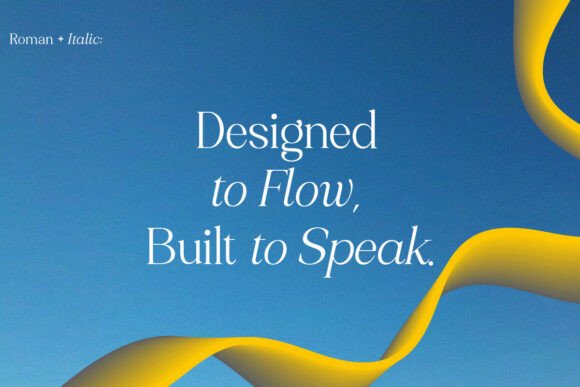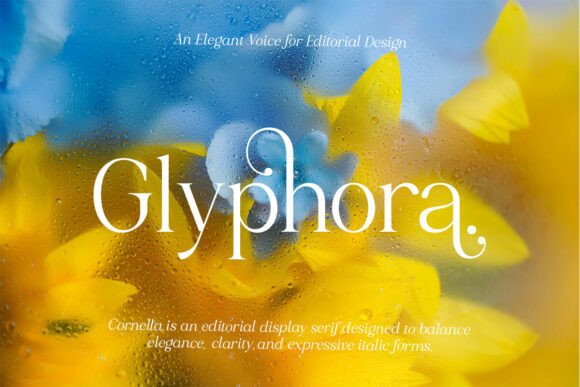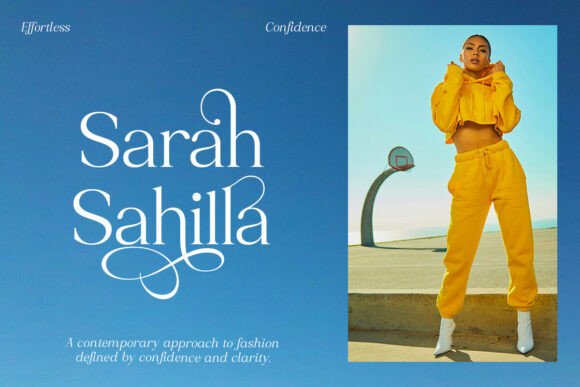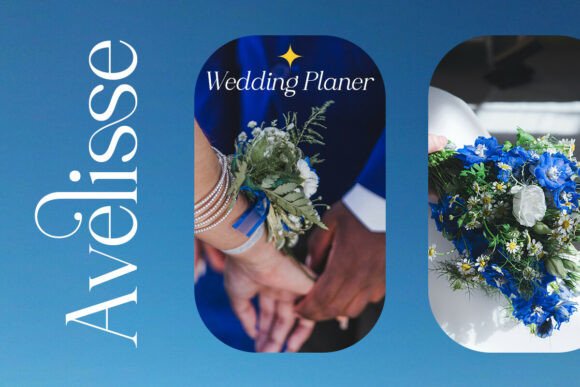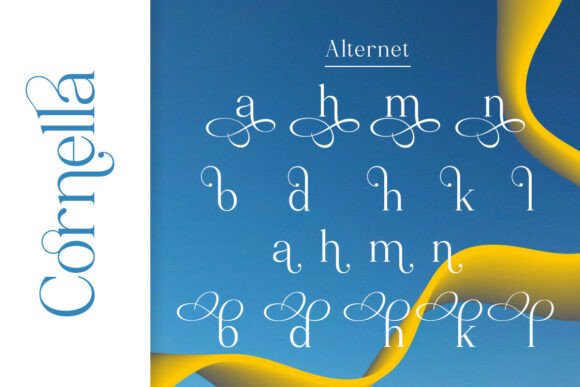
Cornella Font: Elevate Your Design with Elegance and Sophistication
In the world of typography, few fonts manage to strike a balance between classic elegance and modern flair. Cornella Font is one such exceptional typeface that brings sophistication, clarity, and character to modern visual storytelling. Designed with the needs of high-end editorial and display use in mind, Cornella is an elegant editorial display serif that is sure to elevate your design projects.
Inspiration from Classic Typography with a Contemporary Touch
Cornella Font draws inspiration from classic typography, but with a contemporary twist that makes it perfect for modern design applications. The font’s creator aimed to blend the best of traditional typography with the demands of modern visual storytelling, resulting in a typeface that feels both timeless and current.
At the heart of Cornella’s design are its graceful curves, refined contrast, and expressive italic forms. These features combine to create a font that exudes elegance and sophistication, making it an ideal choice for designers seeking a serif that stands out without losing its refinement.
Perfect for High-End Editorial and Display Use
Cornella Font shines in a variety of applications, including fashion editorials, magazine layouts, branding, luxury packaging, wedding designs, and expressive headlines. Its regular style offers clean readability, making it perfect for body text, while the italic adds a dramatic, fluid accent for emphasis and elegance.
Whether you’re designing a luxury brand’s logo, creating a fashion editorial, or crafting a wedding invitation, Cornella Font provides the perfect combination of style and substance. Its balanced proportions and subtle details ensure that it delivers a timeless aesthetic that feels both artistic and modern.
Key Features of Cornella Font
- Regular & Italic styles: Cornella Font comes in two styles, allowing you to choose the perfect variation for your design needs.
- Elegant Editorial Display Serif: Cornella’s serif design makes it perfect for high-end editorial and display use.
- Balanced Proportions: The font’s balanced proportions ensure that it feels both refined and elegant.
- Subtle Details: Cornella’s subtle details add a touch of sophistication to any design.
Ideal Applications for Cornella Font
Cornella Font is perfect for a variety of design applications, including:
- Editorial & Magazine Design: Cornella’s elegant design makes it perfect for magazine layouts, editorials, and other publications.
- Branding & Logo Design: The font’s sophistication and elegance make it an ideal choice for luxury brands and high-end logos.
- Luxury & Fashion Projects: Cornella Font is perfect for fashion editorials, luxury packaging, and other high-end fashion projects.
- Wedding & Event Stationery: The font’s elegance and refinement make it perfect for wedding invitations, event stationery, and other formal designs.
- Headlines, Quotes, and Display Text: Cornella’s expressive italic forms and elegant design make it perfect for headlines, quotes, and display text.
Why Choose Cornella Font?
In a world where typography plays a crucial role in design, Cornella Font stands out as a exceptional choice for designers seeking elegance, sophistication, and character. Its unique blend of classic and modern elements makes it perfect for high-end editorial and display use.
Whether you’re a designer, craftsperson, or simply someone who appreciates beautiful typography, Cornella Font is an excellent addition to your toolkit. Its versatility, elegance, and refinement make it perfect for a wide range of design applications.
So why choose Cornella Font? With its timeless aesthetic, balanced proportions, and subtle details, Cornella Font is the perfect choice for anyone seeking to elevate their design with elegance and sophistication.